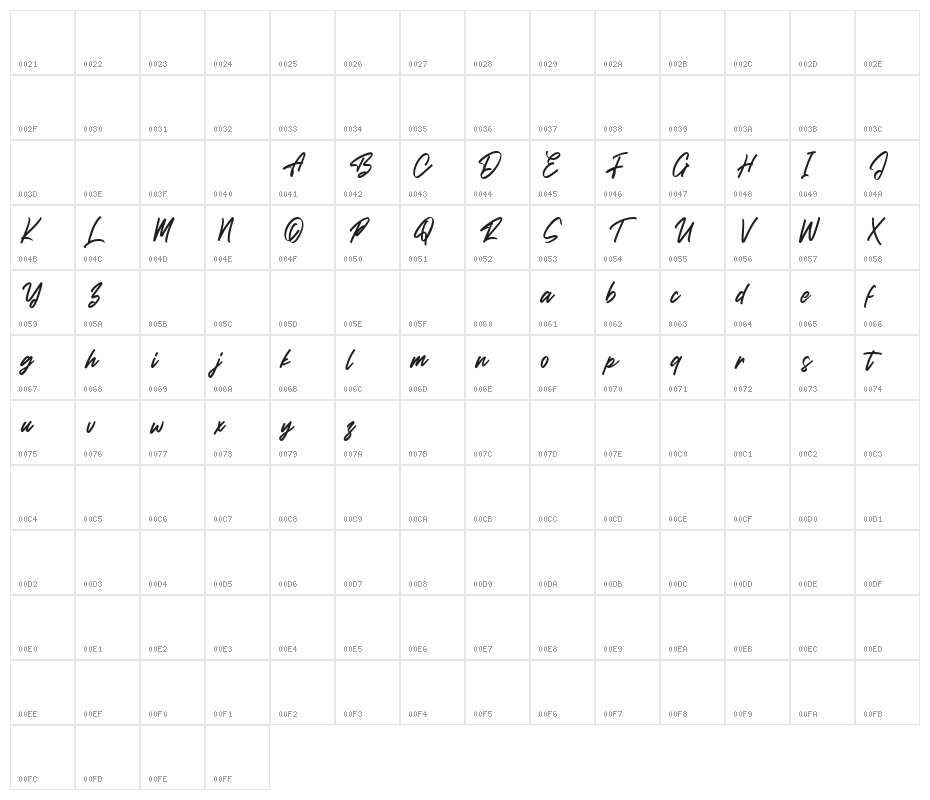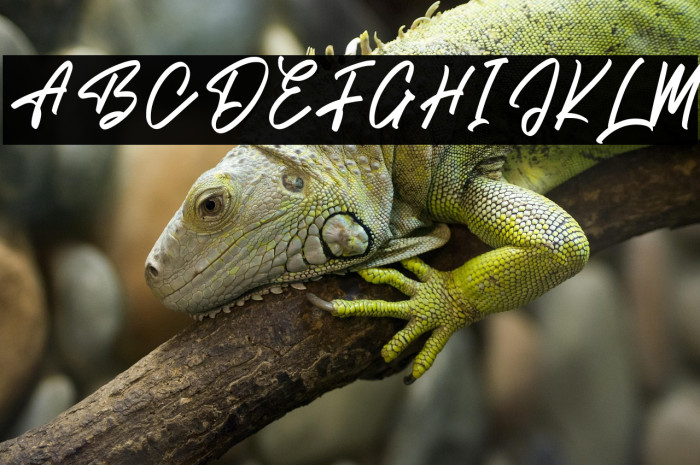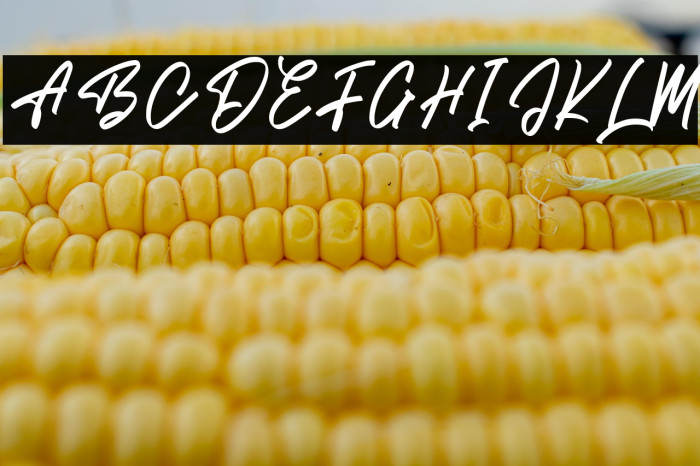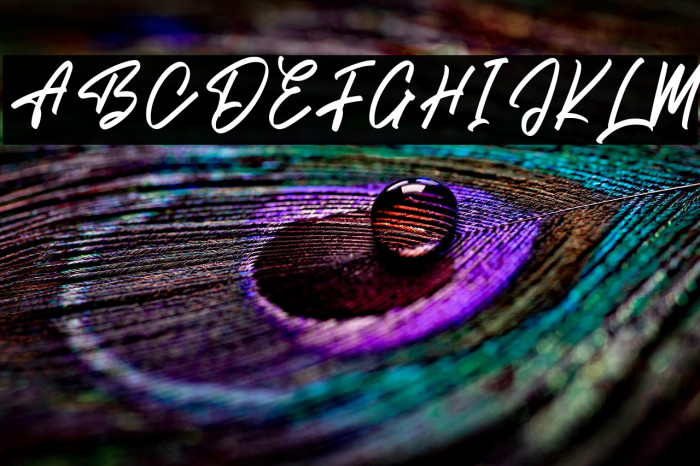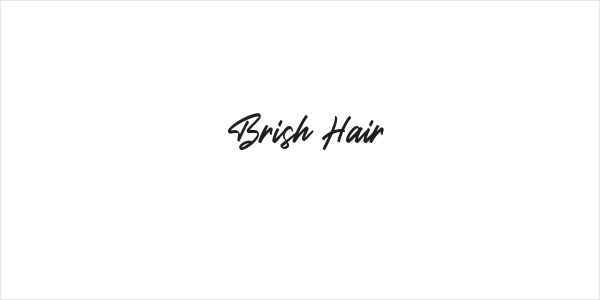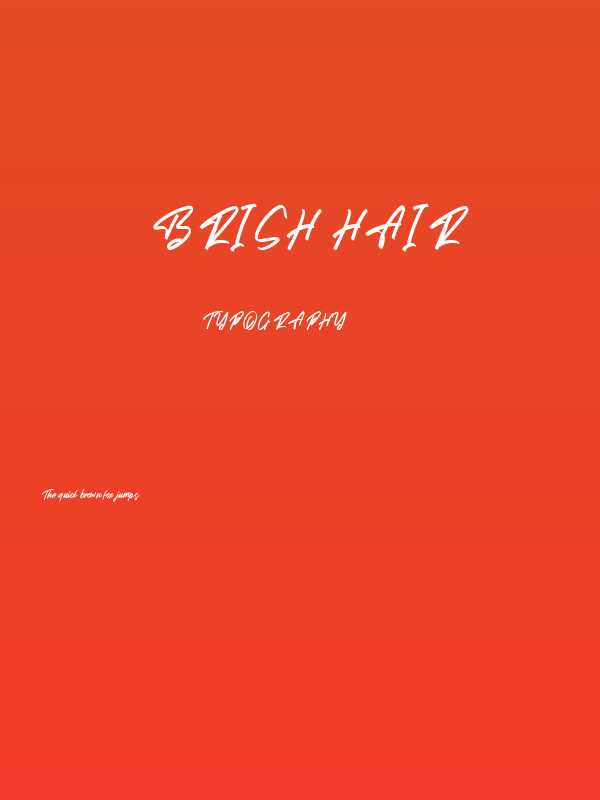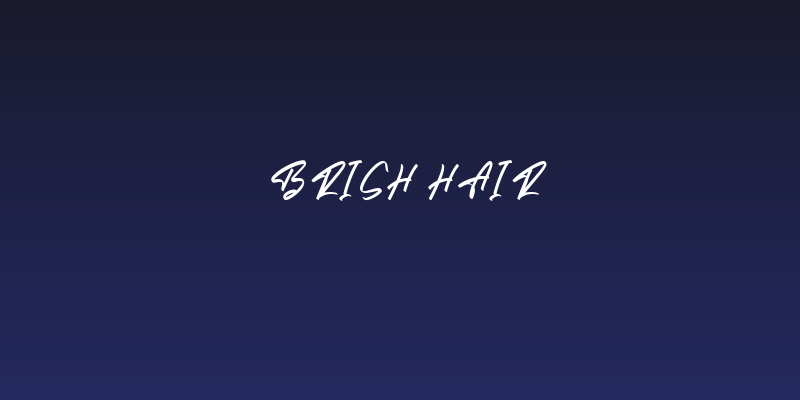
Brish Hair Font
Brish Hair Description
This font features a dynamic and flowing script style, characterized by its elegant and fluid strokes. The letters are interconnected, giving a sense of continuity and movement, which is typical of cursive handwriting. The uppercase letters are bold and slightly larger, providing a strong presence, while the lowercase letters maintain a consistent flow. The overall appearance is both stylish and legible, making it suitable for various design applications. The font's playful yet sophisticated nature makes it ideal for projects that require a personal touch, such as invitations, greeting cards, and branding materials.